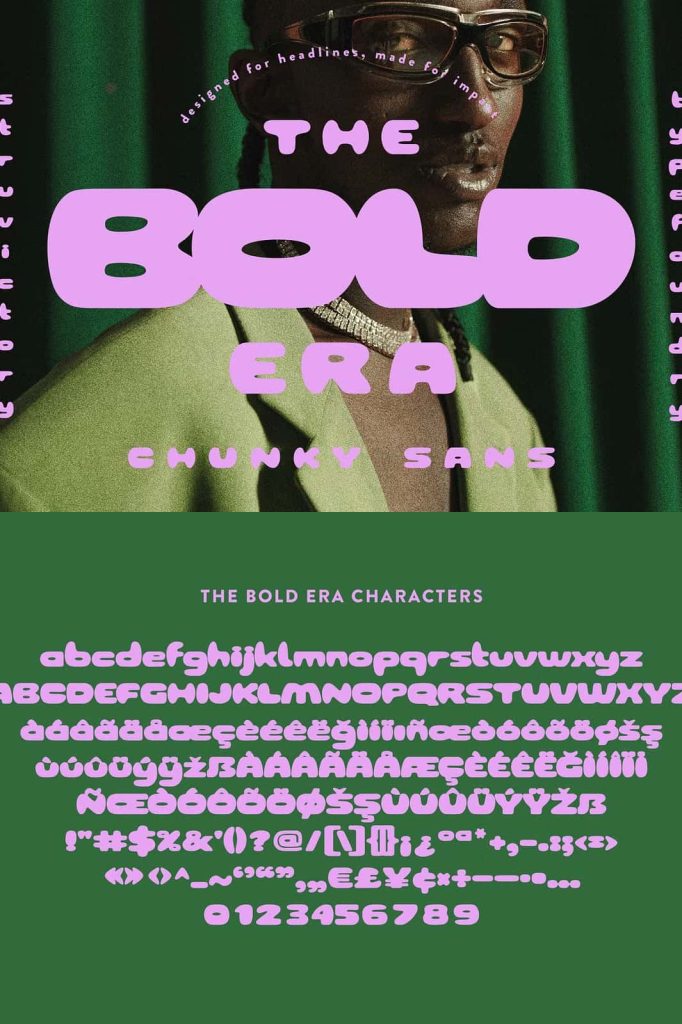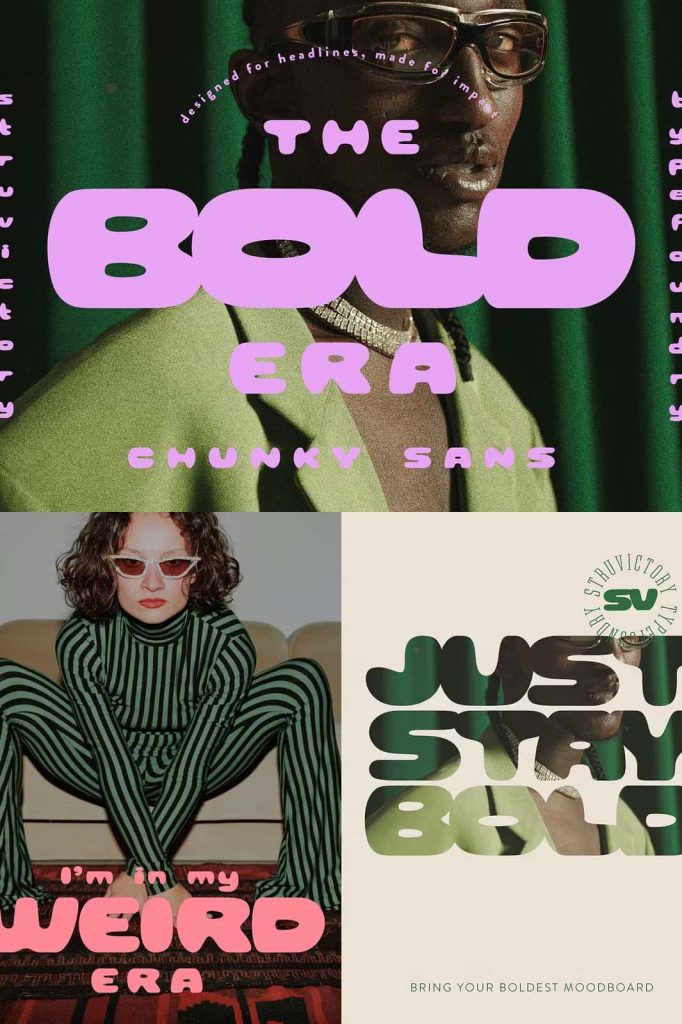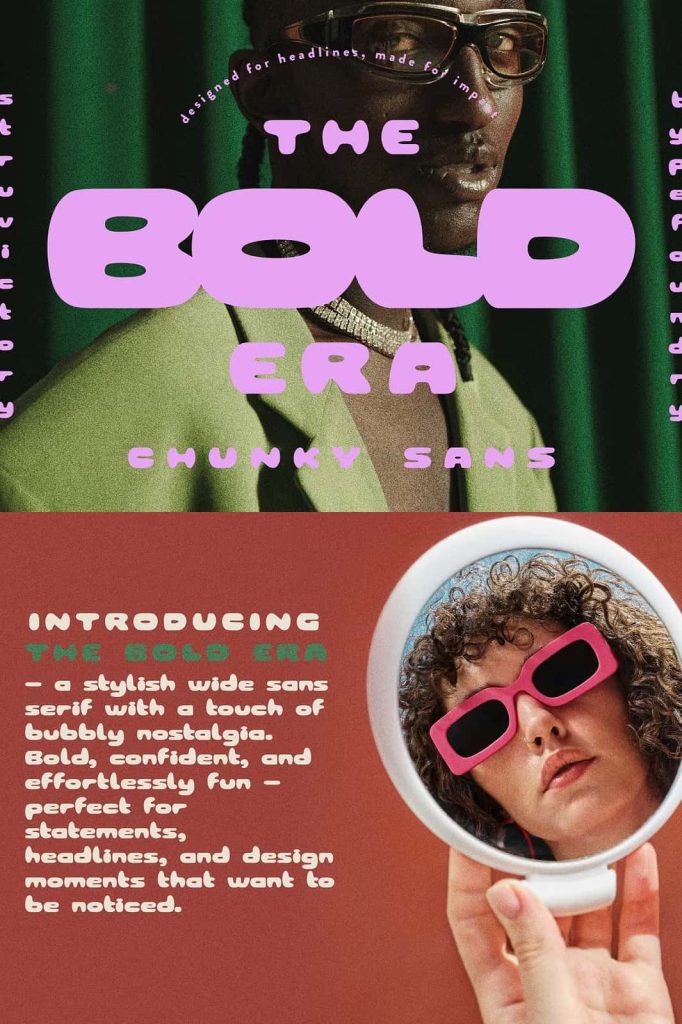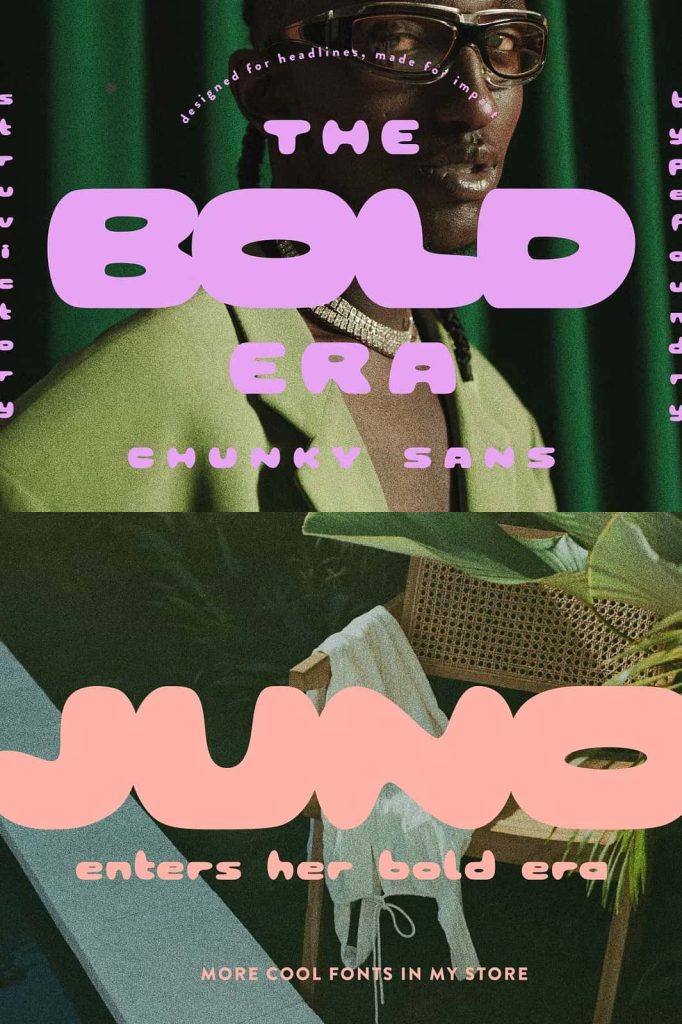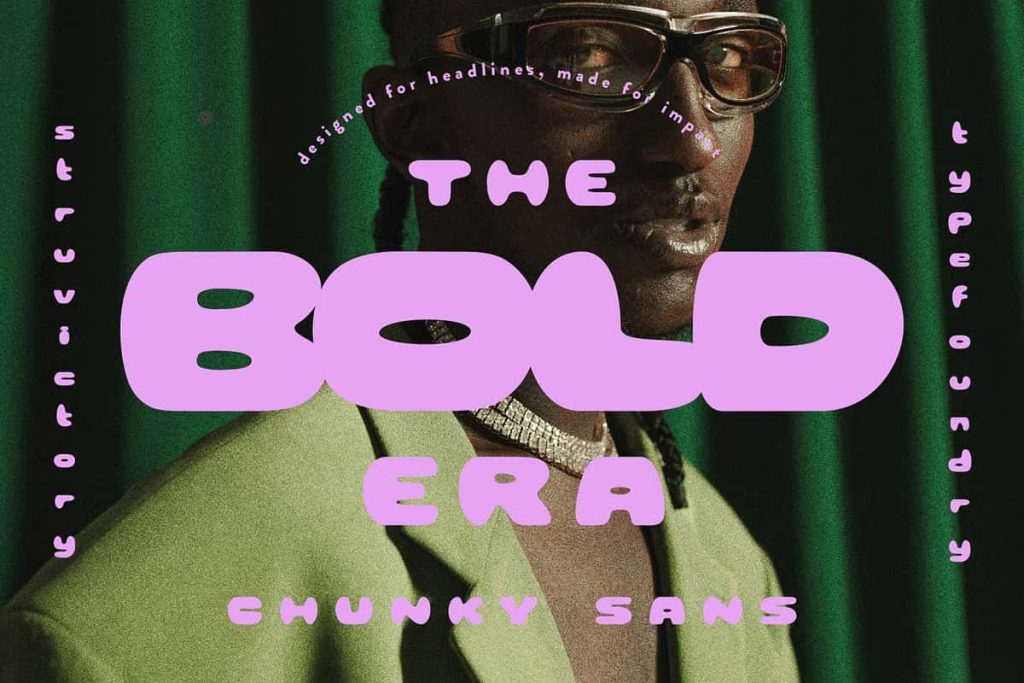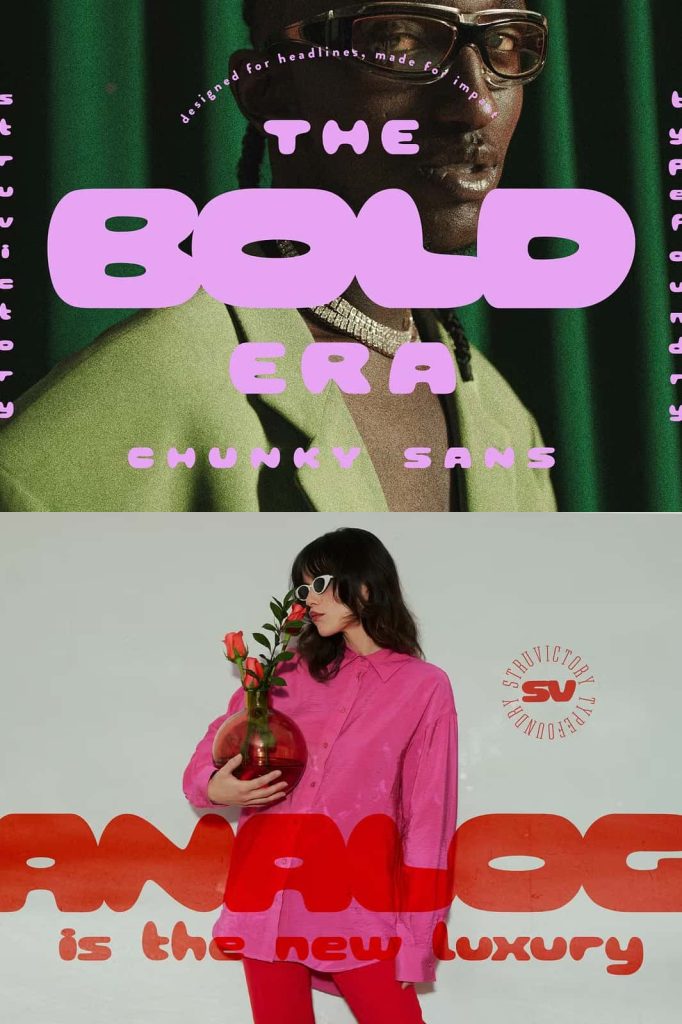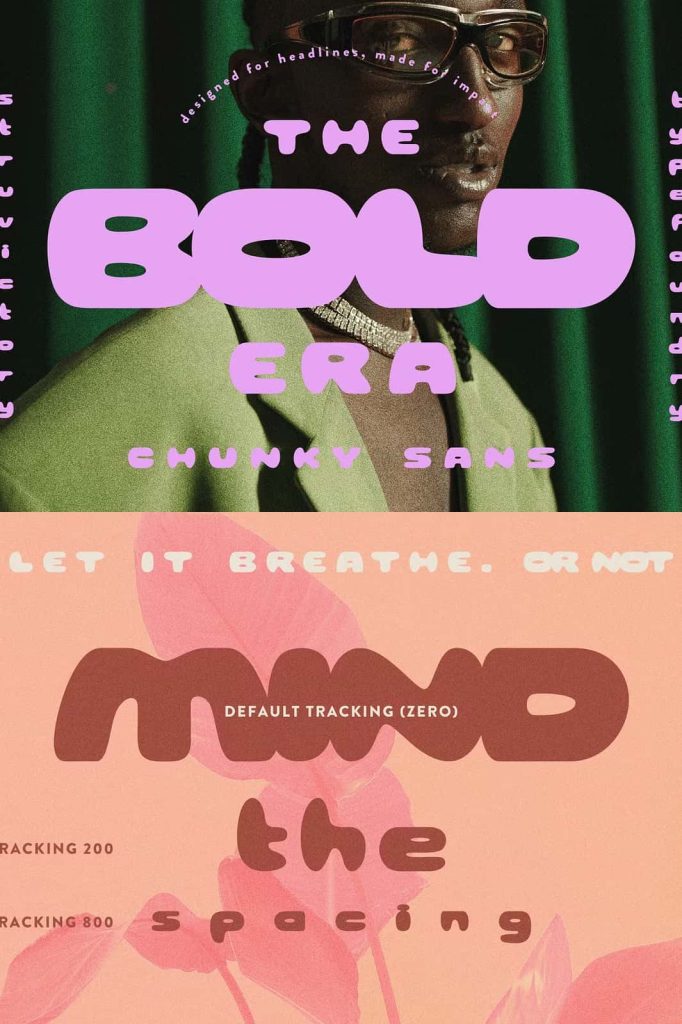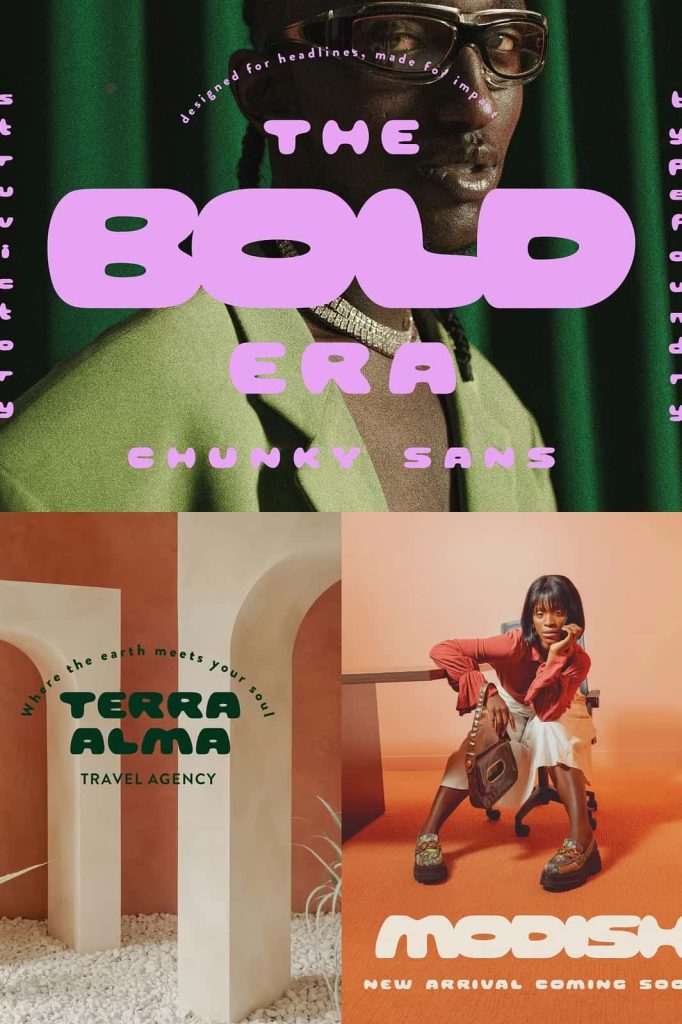
The Bold Era Chunky Sans Serif Font
The Bold Era is a chunky sans serif font that combines retro nostalgia with a modern and playful attitude. This typeface was designed to capture attention through wide letterforms, compact spacing, and smooth rounded curves that give every word a strong visual presence. Designers who want their typography to feel energetic, bold, and stylish will find The Bold Era to be a powerful tool for creating expressive layouts.
The design of this font reflects the vibrant visual language of retro design while still maintaining a modern sensibility. Its bold shapes and confident structure allow it to stand out in any composition. Instead of blending quietly into the background, The Bold Era commands attention and becomes the focal point of the design.
Whether you are creating posters, branding materials, album artwork, or promotional graphics, this chunky sans serif font helps transform simple text into impactful visual statements. Its bold personality allows designers to experiment with color, spacing, and layout to produce designs that feel dynamic and memorable.
A Retro-Inspired Typeface with Modern Personality
The Bold Era draws inspiration from retro typography often seen in vintage posters, advertisements, and pop culture graphics. The wide shapes and compact rhythm echo the bold lettering styles of past decades while maintaining a modern aesthetic suitable for contemporary design projects.
Instead of strictly replicating vintage fonts, The Bold Era reimagines those influences with a modern twist. The letterforms appear smooth, rounded, and confident, giving the typeface a bubbly character that feels approachable and energetic. This combination of retro inspiration and modern clarity allows designers to create visuals that feel both nostalgic and fresh.
The typeface’s unique style works especially well in creative industries that celebrate expressive design. From music and entertainment to lifestyle branding and streetwear culture, The Bold Era brings visual energy to typography-driven layouts.
Chunky Letterforms with Ultra-Tight Spacing
One of the most distinctive features of The Bold Era is its chunky structure and ultra-tight letter spacing. The wide letterforms fill space confidently, creating typography that feels compact, powerful, and visually impactful. This tight rhythm allows designers to build headlines that feel loud and energetic.
The bold proportions also help the typeface remain readable even when used in large headline sizes. The letters maintain their structure and clarity while still delivering strong visual impact. Designers can use this font to create titles that dominate the layout and immediately capture the viewer’s attention.
Despite its strong presence, the font maintains balance through smooth curves and thoughtful spacing. These details prevent the design from feeling heavy or overwhelming while preserving its punchy personality.
Soft Curves That Add Playful Character
While The Bold Era emphasizes boldness, it also introduces charm through its soft rounded curves. These subtle curves soften the overall appearance of the typeface and create a friendly, playful tone. The result is a font that feels strong yet approachable at the same time.
The rounded edges give the typography a bubbly quality that works well in creative and expressive designs. Instead of appearing rigid or mechanical, the letters feel lively and dynamic. This playful energy makes the font particularly suitable for modern visual styles that celebrate bold colors and graphic experimentation.
Designers can use this playful quality to create engaging visual identities that feel energetic and memorable. The combination of bold shapes and smooth curves ensures that every word carries personality.
Perfect for Posters, Branding, and Merchandise
The Bold Era works exceptionally well in design projects where typography must stand out. Posters benefit from the large, confident letterforms that grab attention from a distance. When paired with vibrant color palettes and retro-inspired graphics, the font helps create striking visual compositions.
Branding projects also benefit from the strong identity that The Bold Era provides. Businesses looking for a bold and modern voice can use this font for logos, promotional graphics, and packaging design. The wide shapes create memorable brand marks that remain recognizable across multiple platforms.
Merchandise design is another area where this font excels. T-shirts, stickers, tote bags, and apparel graphics often rely on strong typography to carry the visual concept. The Bold Era delivers that strength by turning words into bold graphic elements that feel stylish and expressive.
Ideal for Album Covers and Bold Headlines
Music and entertainment design frequently rely on powerful typography to communicate mood and identity. The Bold Era fits perfectly within this creative space. Its bold character works beautifully for album covers, concert posters, and promotional graphics that require striking visual impact.
Album titles set in this chunky sans serif font instantly create a sense of confidence and attitude. The tight spacing and wide letters produce typography that feels energetic and contemporary. Designers can combine the font with vibrant colors, textured backgrounds, or vintage design elements to create visually engaging music artwork.
The Bold Era also performs exceptionally well for bold headlines in editorial layouts and marketing materials. Its strong presence ensures that key messages remain clear and visually dominant within the composition.
Adjust Letter Spacing to Create Different Moods
Another powerful feature of The Bold Era is its ability to transform its visual mood through simple spacing adjustments. Designers can modify the letter spacing to explore different typographic styles and creative directions.
When the letters remain tightly spaced, the text feels dense, energetic, and punchy. This approach works well for bold headlines and poster titles that need maximum visual impact. The compact rhythm emphasizes the strong personality of the font.
By slightly increasing the spacing between letters, designers can create a more relaxed and open appearance. This adjustment introduces a breezier tone while still maintaining the distinctive character of the typeface. This flexibility allows the font to adapt to a variety of design needs.
Create Bold and Memorable Typography
The Bold Era empowers designers to create typography that feels loud, confident, and visually exciting. Its chunky letterforms, tight rhythm, and playful curves combine to produce a font that immediately captures attention. The retro-inspired style brings nostalgic charm while the modern structure keeps the design fresh and contemporary.
From posters and branding to album covers and merchandise graphics, The Bold Era provides a powerful typographic voice for creative projects that demand attention. Designers who want their words to stand out and express personality will find this chunky sans serif font to be an essential addition to their creative toolkit.